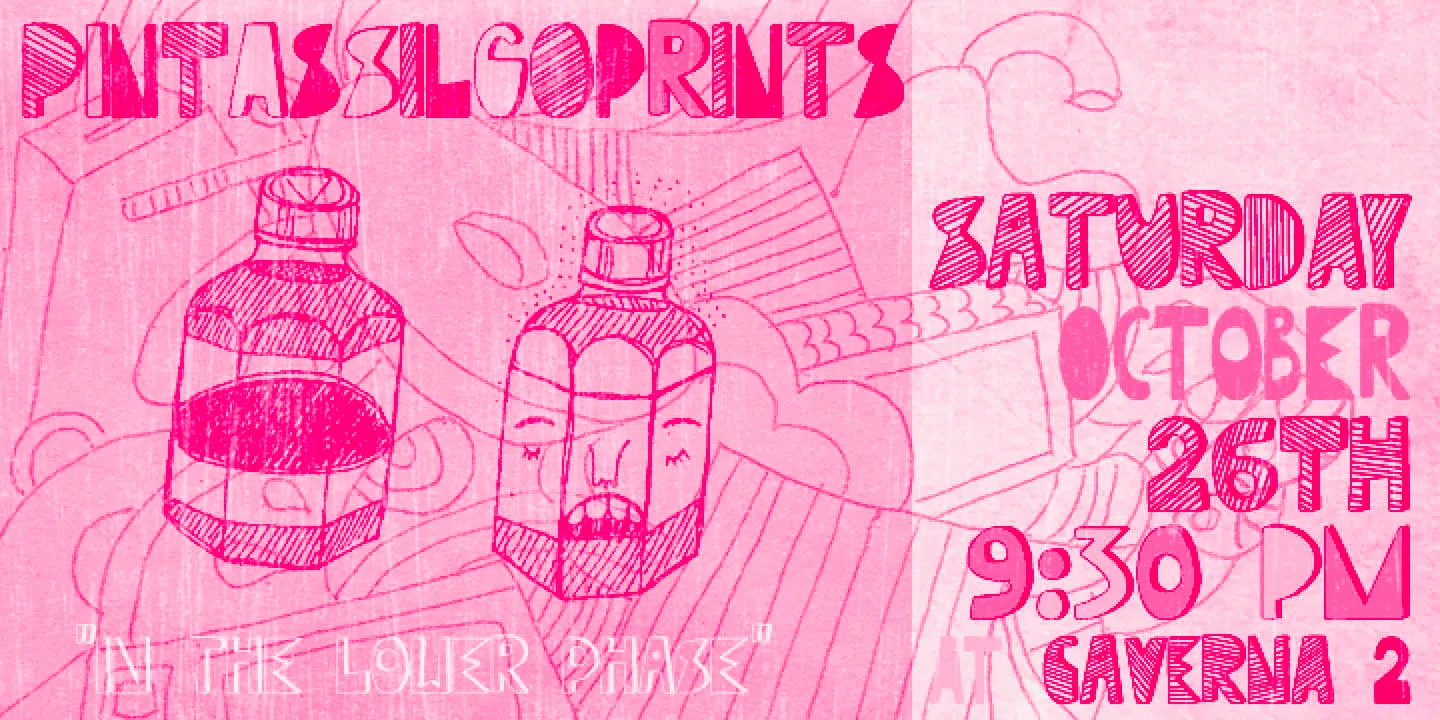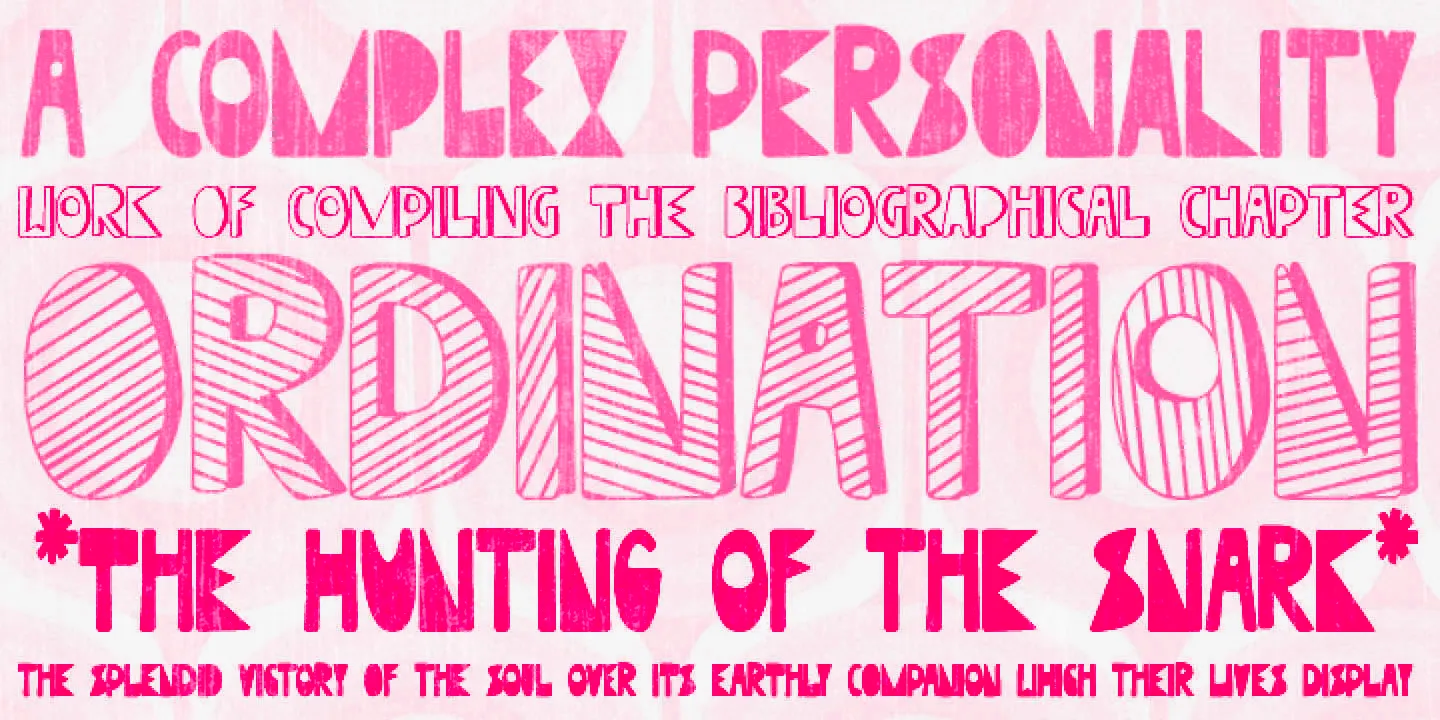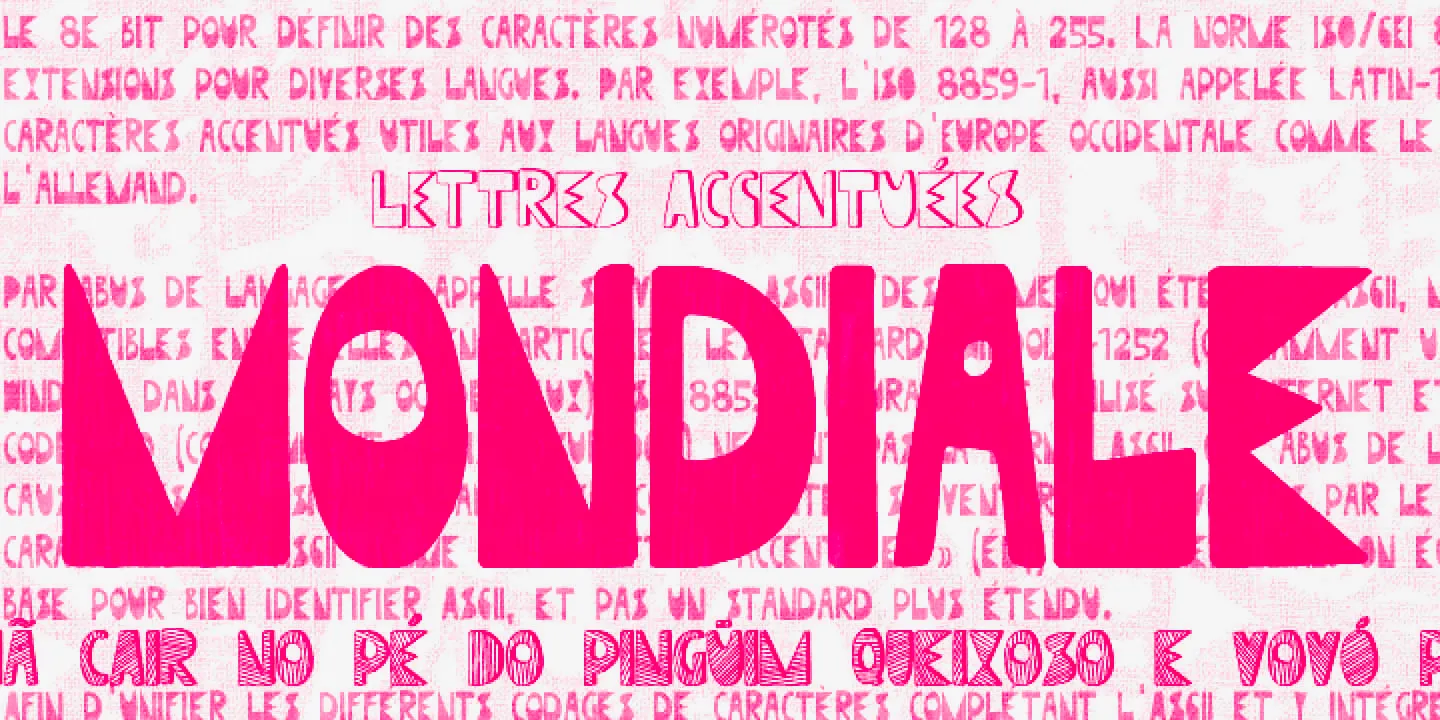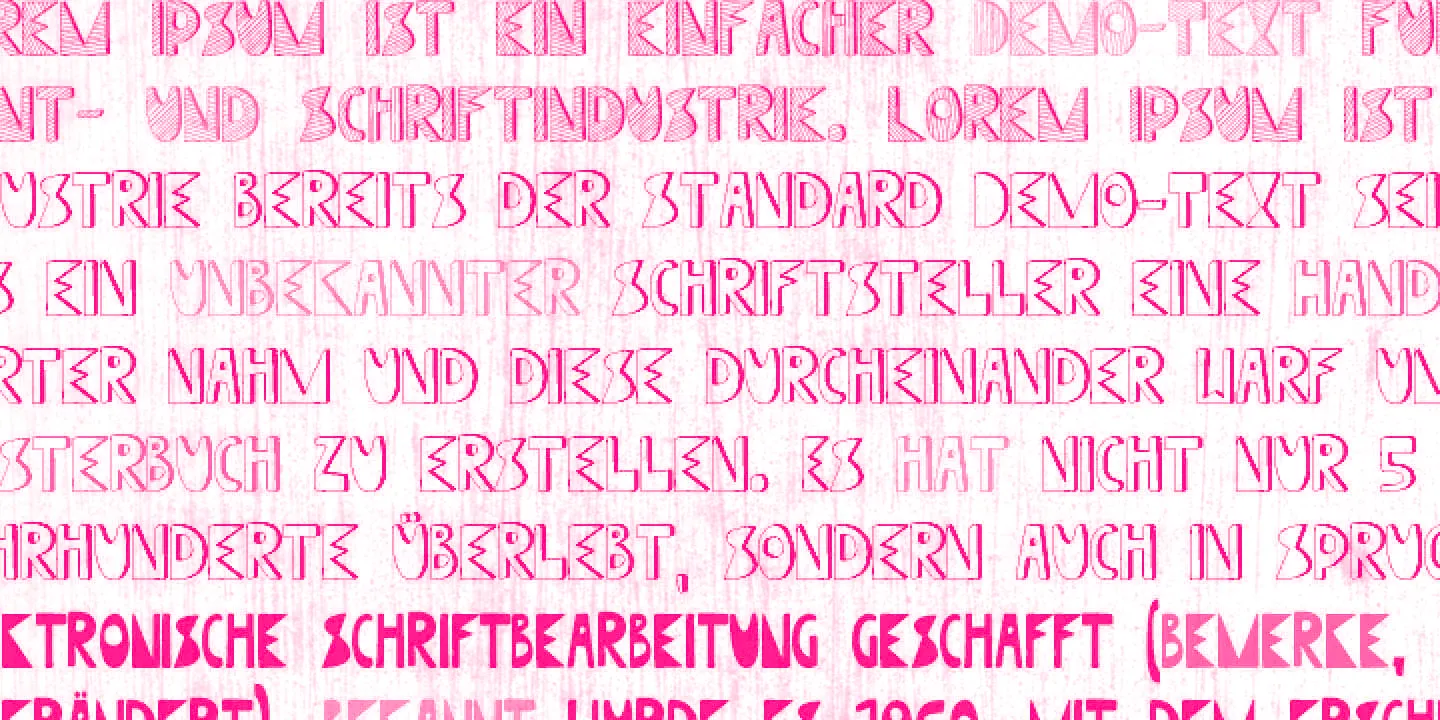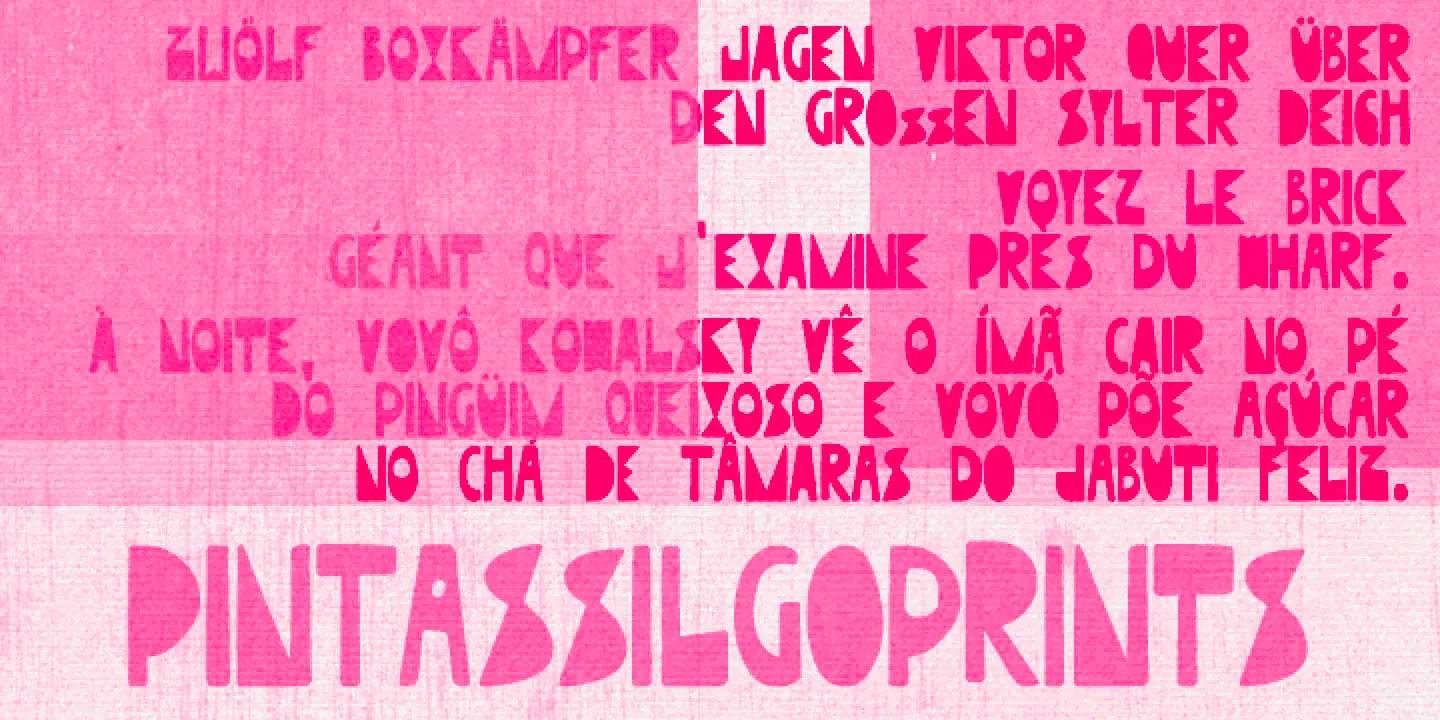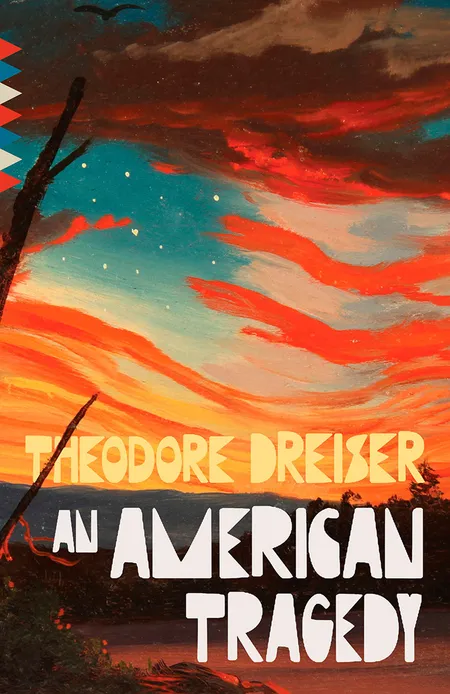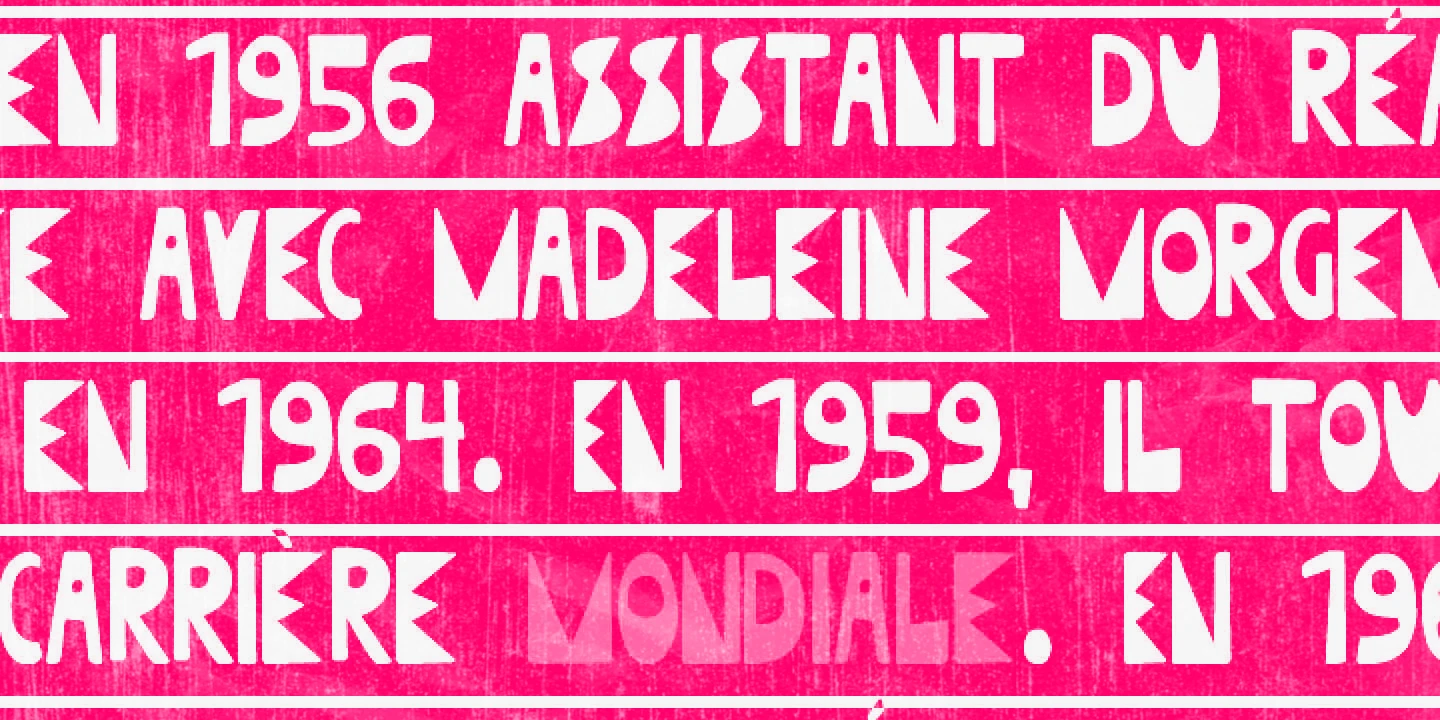
Mondiale Font Family
• Mondiale Block
• Mondiale Block Striped
• Mondiale Regular
Mondiale
Mondiale is an irregularly quirky unicase font family with a hand-drawn feel. Its sharp angles and geometric curves bring an Art Deco-meets-Retro-Futurism vibe. At the same time, the playful variation across styles adds visual rhythm and punch. Used in a targeted way, these three unique typefaces will add a memorable vibe that would be great for concert posters, album covers, game packaging, or any graphic design project looking to make a bold, stylish statement.